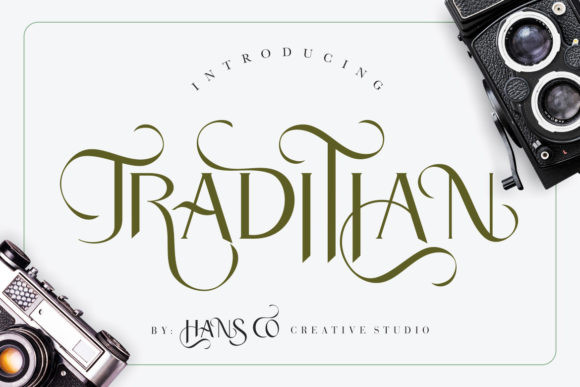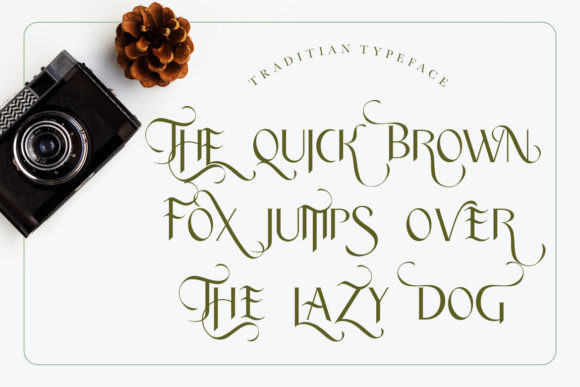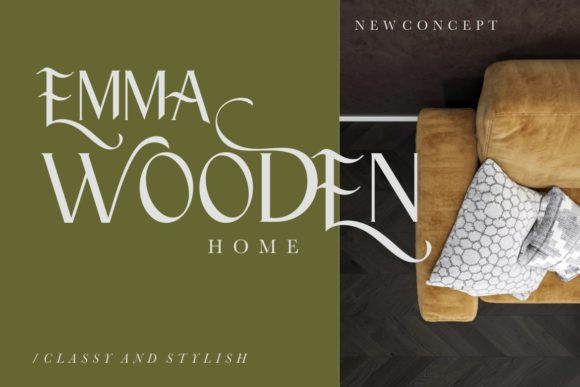
Traditian Font
Traditian is inspired by classic typography and brings its own unique style to any design project. This fantastic display font is best suited for headlines of all sizes, as well as for blocks of text that have both maximum and minimum variations. Whether it’s for web, print, moving images or anything else – Traditianwill look spectacular.